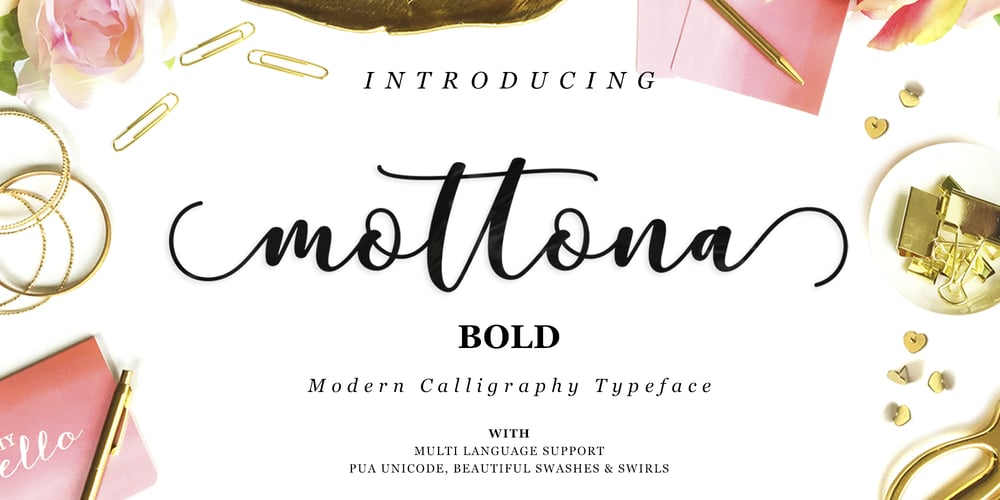
Mottona Font Family was designed by Barmawi and published by Creative Lafont. Mottona contains 1 styles and family package options. Introducing Mottona Bold Script (OpenType Font)Mottona Bold Script is a modern script font, every single letters has been carefully crafted to make your text look beautiful. As a modern script style this font will be a perfect fit for a broad range of projects, like wedding invitations, greeting cards, posters, name cards, quotes, blog headers, branding, logo, fashion, apparel, stationery, etc.Mottona Bold Script allows you to customize your text by making use of the many character variations included: Stylistic Alternates in Stylistic Sets, Initial and Terminal Forms as well as ligatures can be activated in OpenType savvy applications like Adobe Photoshop, Adobe Illustrator or Adobe InDesign or accessed via glyphs panel. Just change the regular character variant to its design alternative to customize to the layout of your dreams!Files included:- Mottona BoldFeatures:- Basic Latin A-Z and a-z- Numbers & Symbols- Stylistic Set & Ligatures- PUA-encoded characters- Latin “Pro” charactersThanks for your visit ๐